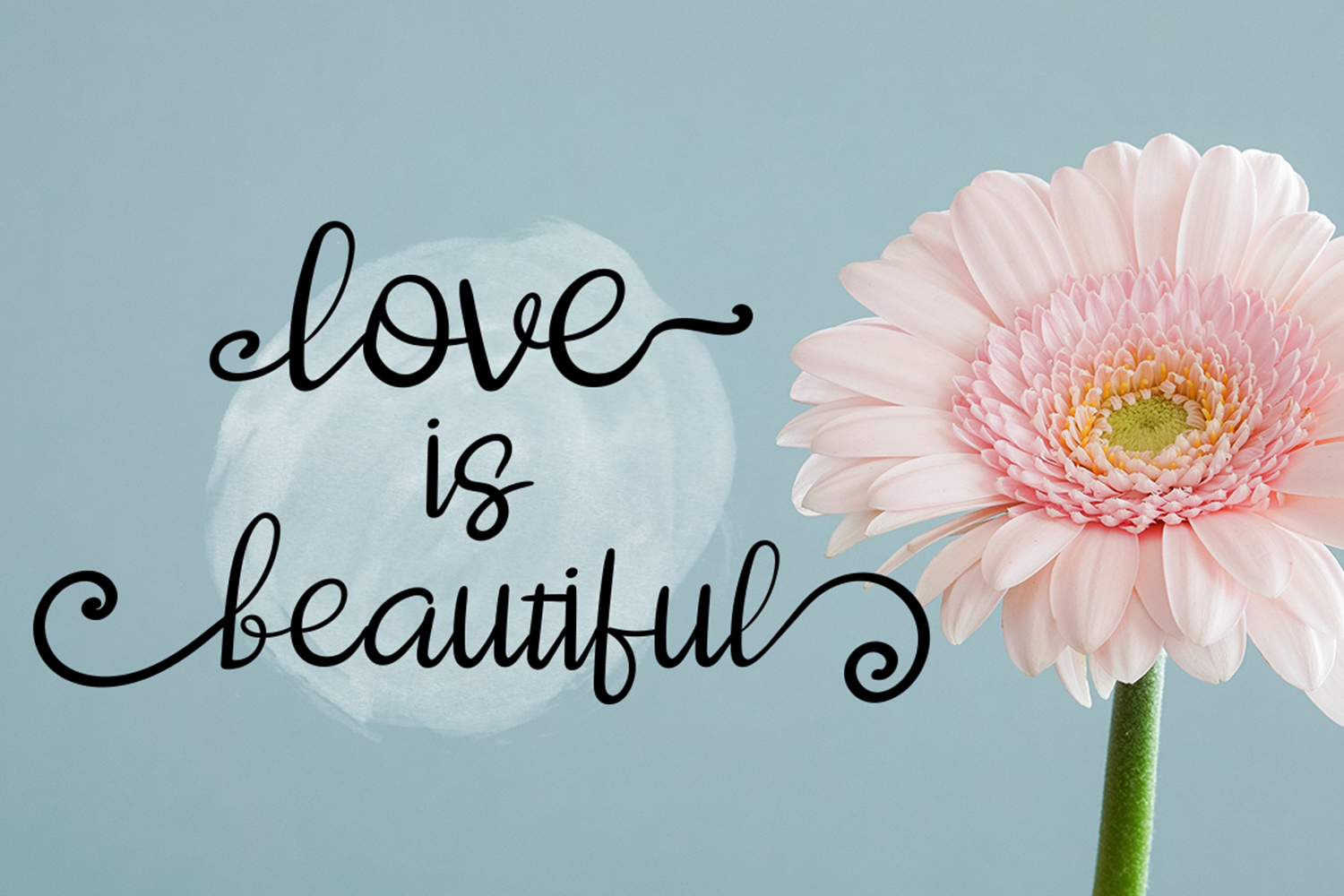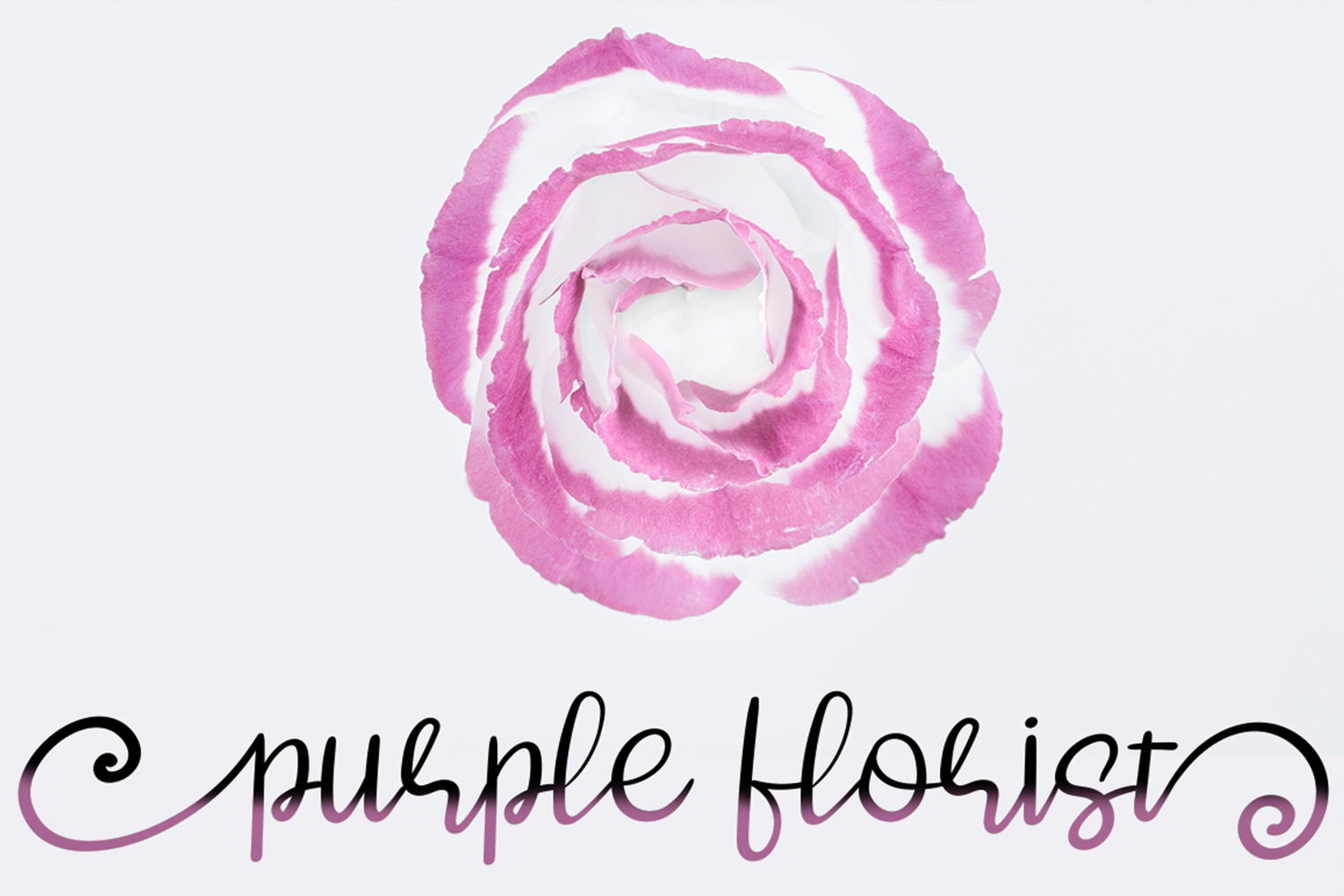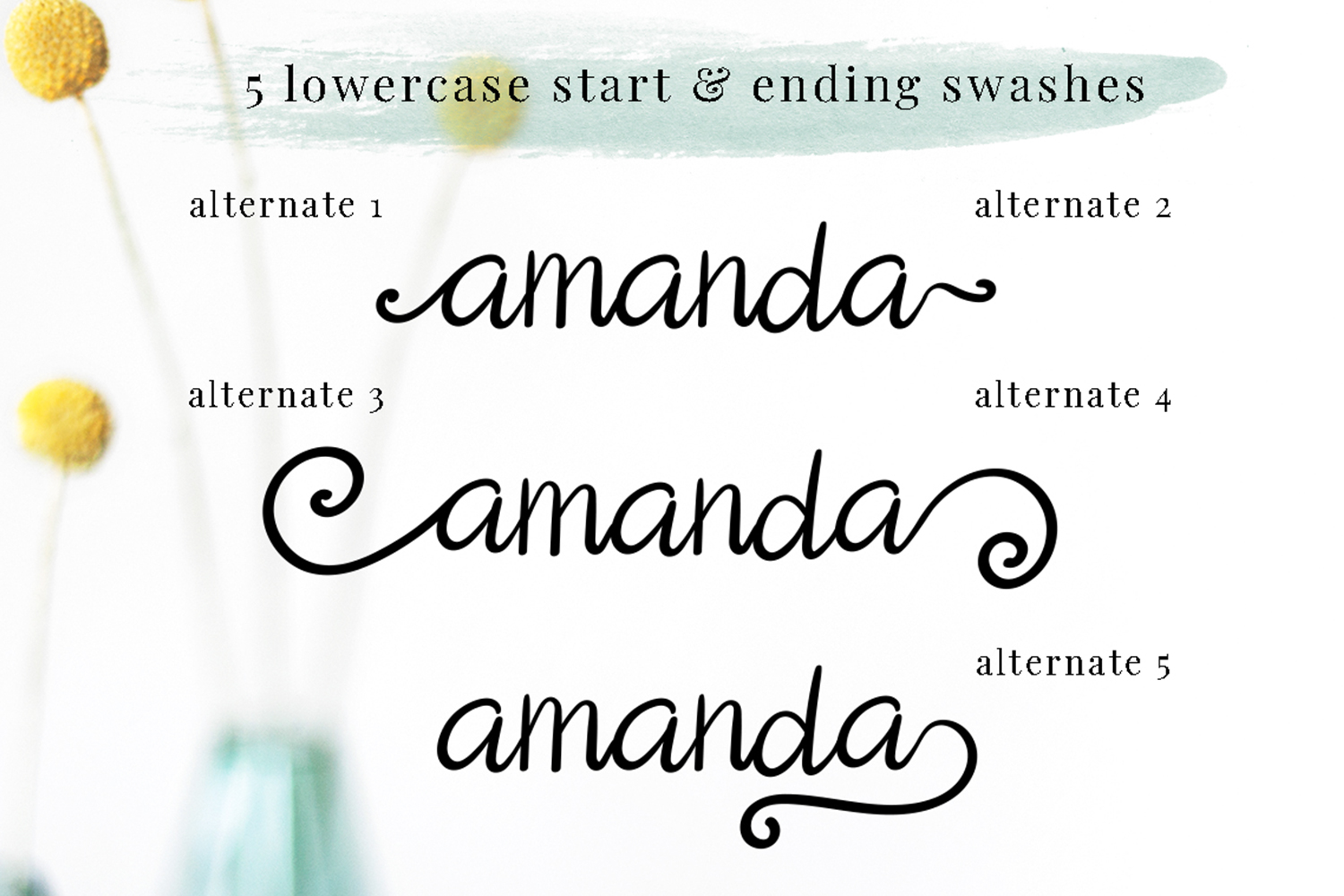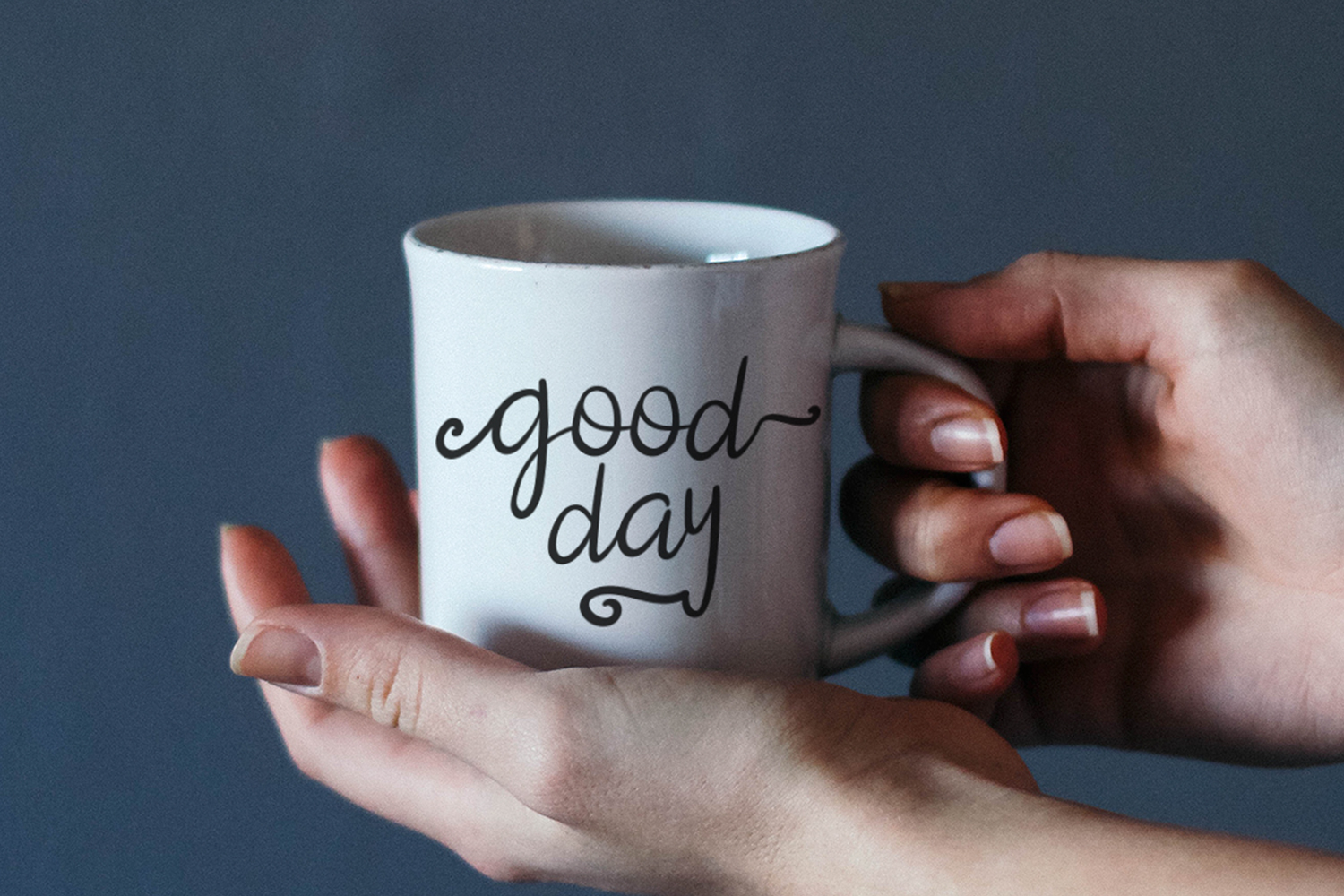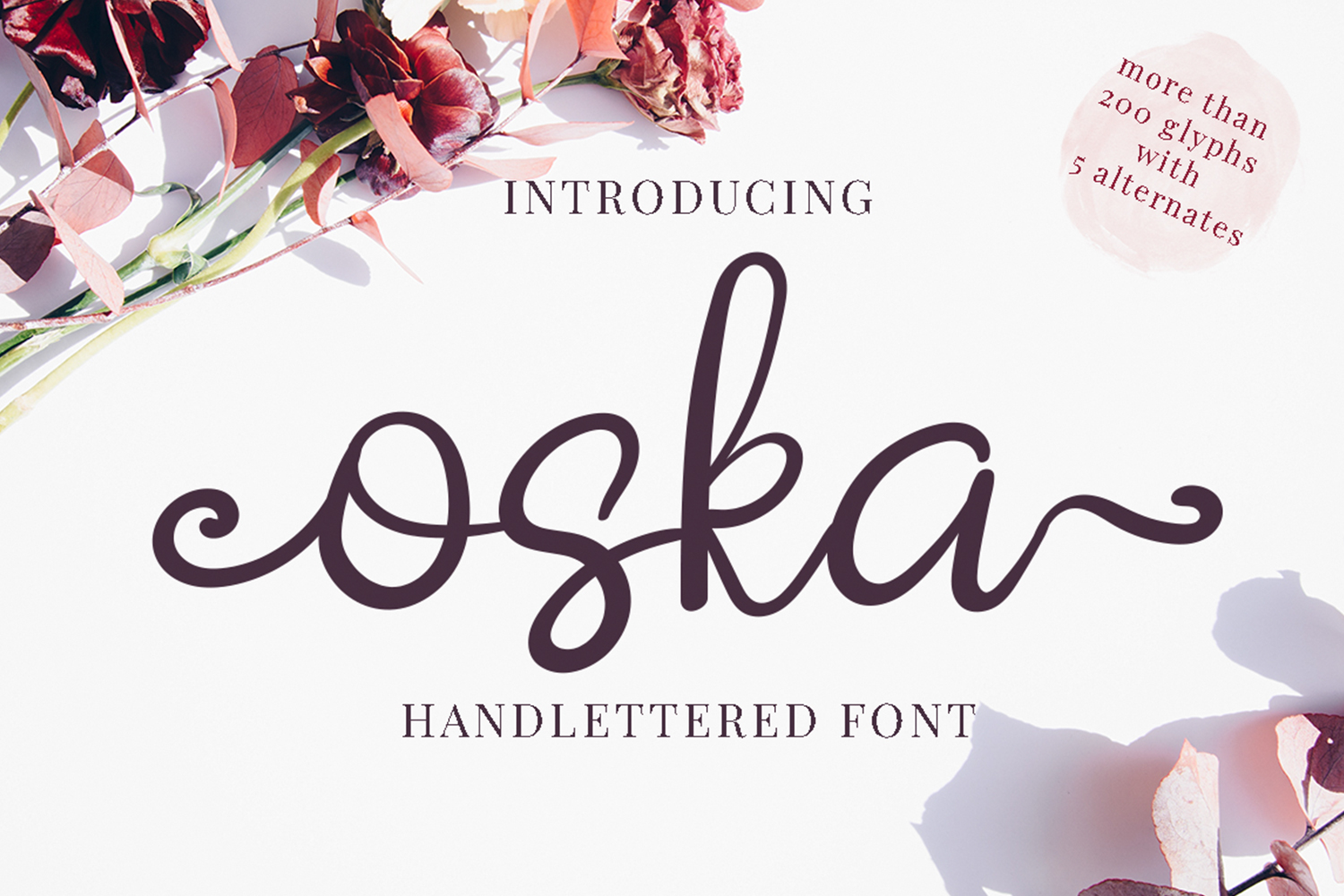
Oska Script Font
Oska is a new fresh handmade calligraphy font. Very suitable for greeting cards, branding materials, business cards, quotes, posters, and more! It comes with 5 alternate which can be paired together perfectly! It gives you the opportunity to create unique designs, every time you use it.